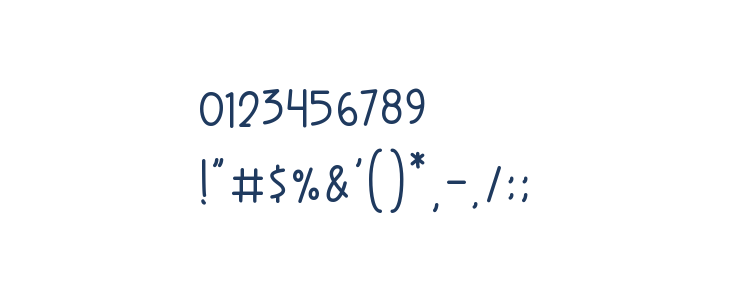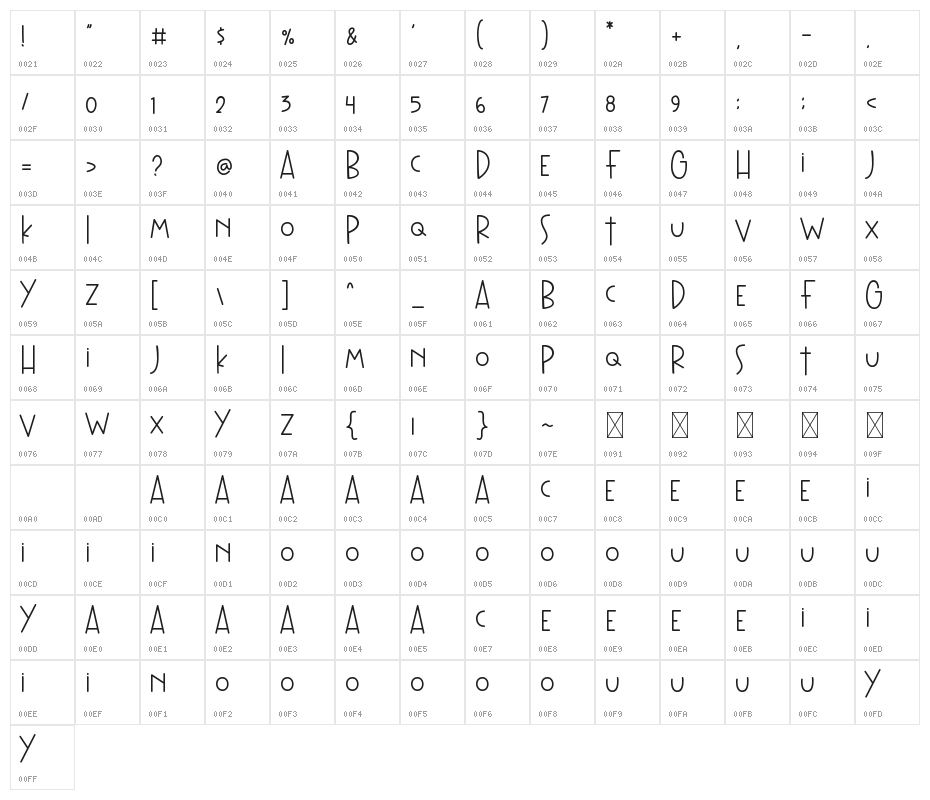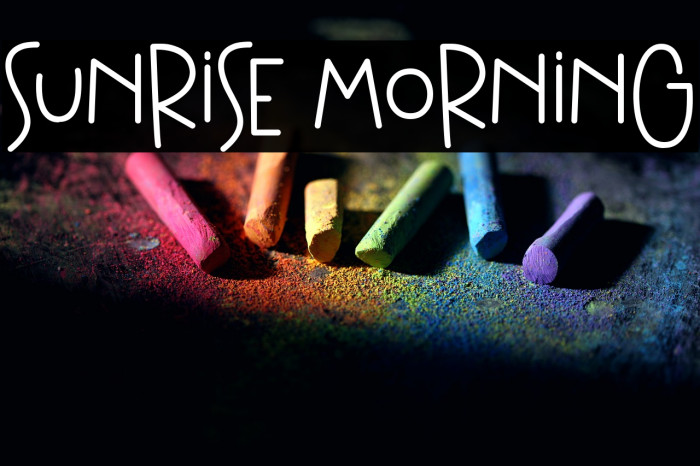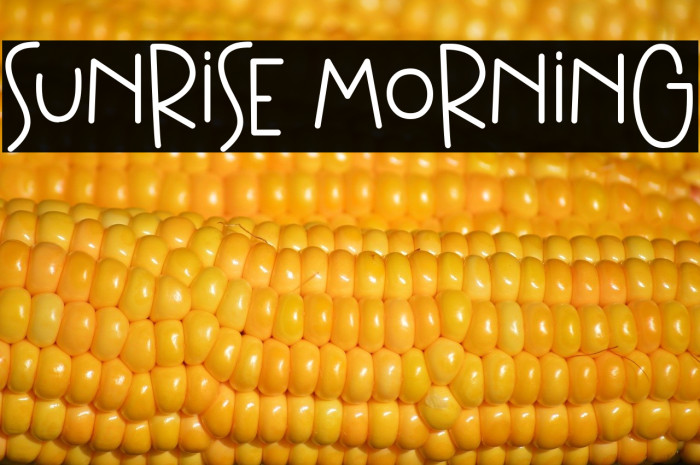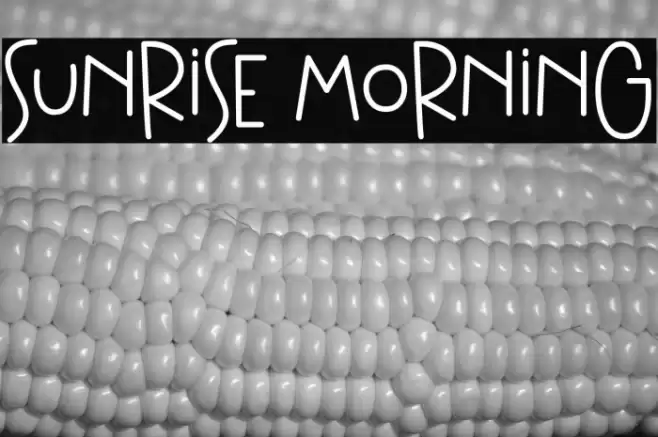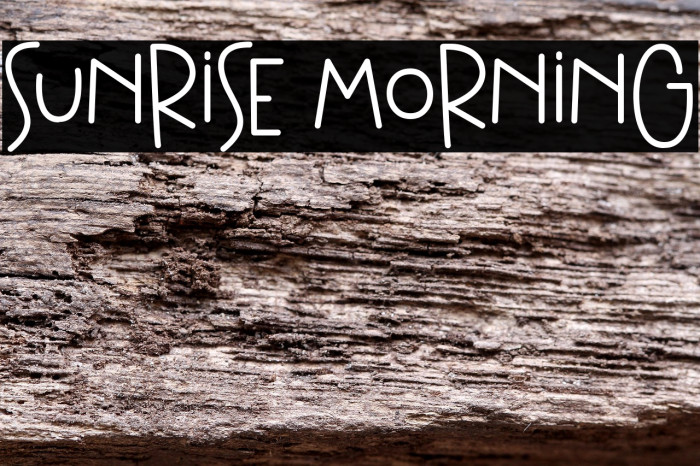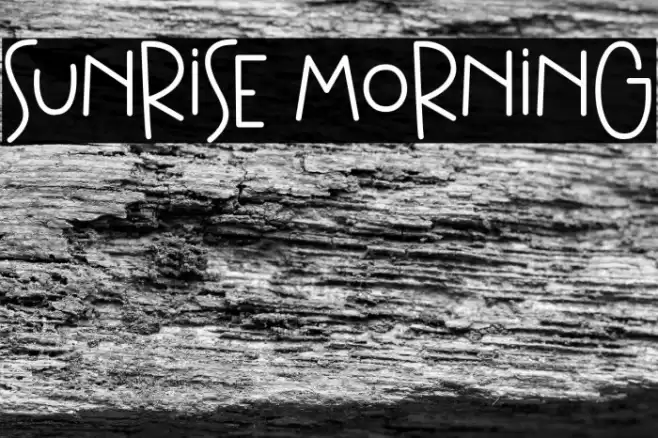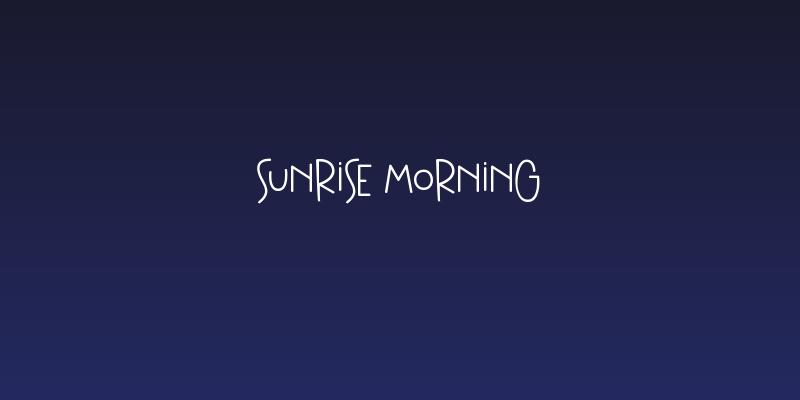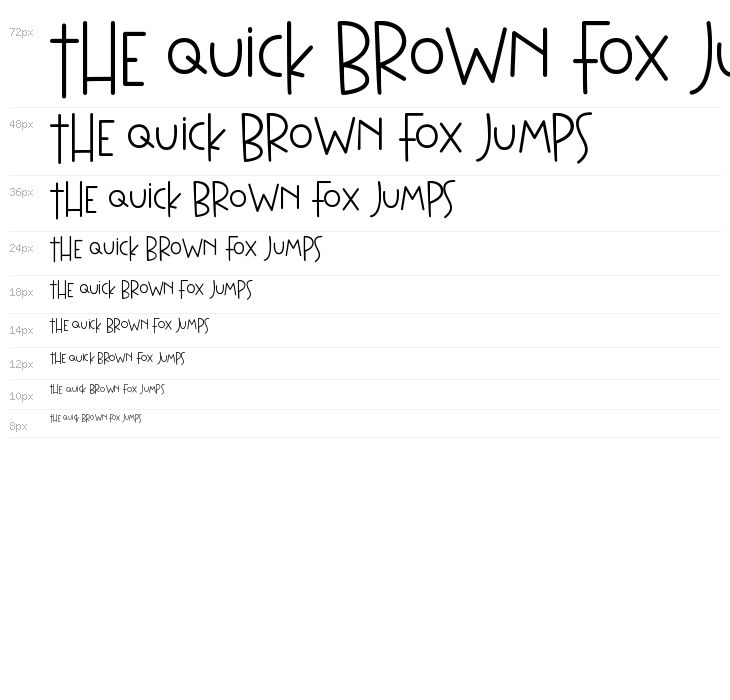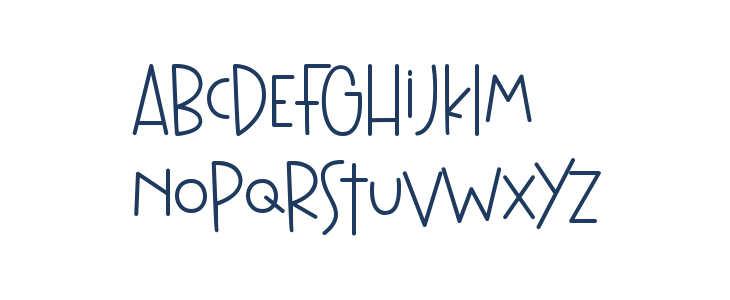
Sunrise Morning Font
Sunrise Morning Description
This playful and whimsical font features tall, narrow letters with a hand-drawn aesthetic. The uppercase and lowercase characters maintain a consistent style, with slightly irregular strokes that add a casual, friendly feel. The numbers and special characters complement the alphabet with the same quirky charm. The overall appearance is informal and approachable, making it suitable for projects that require a touch of personality and creativity. The font's unique style is characterized by its uneven lines and slightly tilted letters, giving it a dynamic and lively look.
| Proposed Projects | Ideal for children's books, greeting cards, playful branding, and creative posters. |